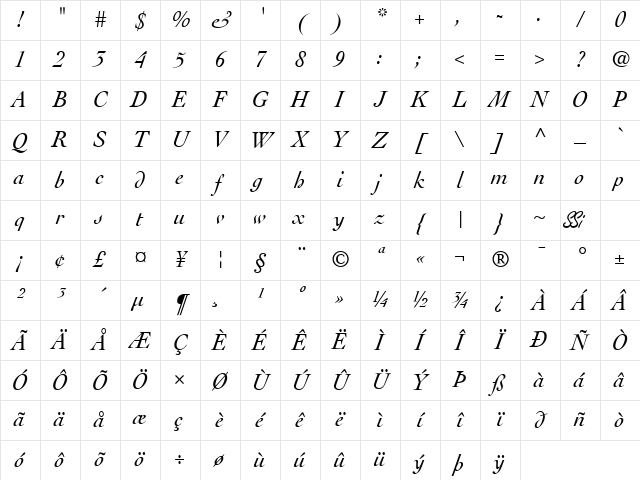
Thesis SSi is a composed and adaptable typeface that performs quietly and consistently across a wide range of design contexts. The slanted form adds forward momentum and visual energy.